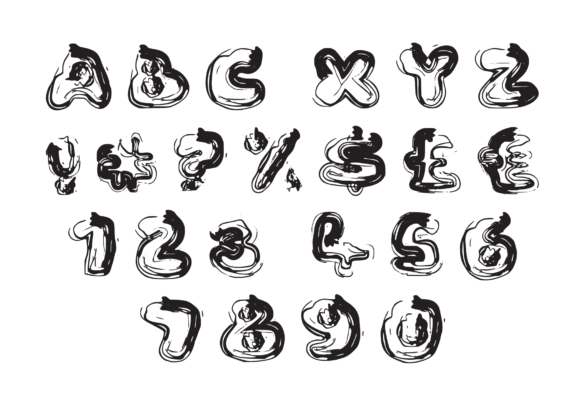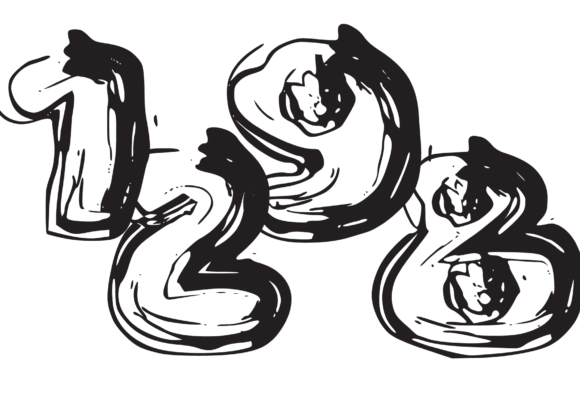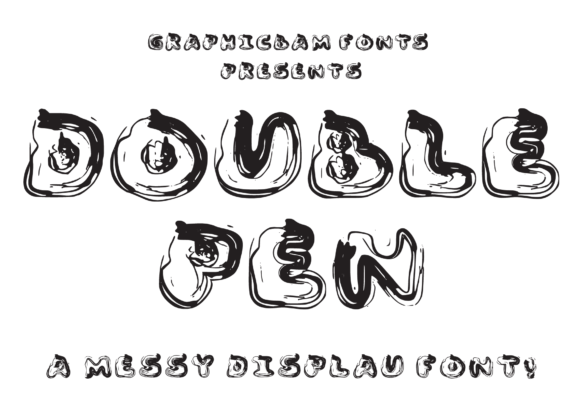
Introducing Double Pen Font: Add a Playful Touch to Your Designs
Are you tired of using the same old fonts in your designs? Look no further! Double Pen Font is a casual, bold looking, outlined display font that’s sure to add a playful and personalized touch to your creations. In this article, we’ll dive into the features and benefits of Double Pen Font, and explore how you can use it to take your designs to the next level.
What is Double Pen Font?
Double Pen Font is a unique and eye-catching font that’s perfect for designers and crafters looking to add some personality to their work. This font features a bold, outlined design with a casual and playful feel. The double pen effect gives it a distinctive look that’s sure to grab attention.
Key Features of Double Pen Font
- Bold and Outlined Design: Double Pen Font features a bold and outlined design that’s perfect for creating eye-catching headlines and titles.
- Casual and Playful Feel: This font has a casual and playful feel that’s perfect for designs that need a personal touch.
- Unique Double Pen Effect: The double pen effect gives this font a distinctive look that’s sure to set it apart from other fonts.
- Easy to Read: Despite its bold design, Double Pen Font is easy to read, making it perfect for use in a variety of designs.
Benefits of Using Double Pen Font
So why should you use Double Pen Font in your designs? Here are just a few benefits:
- Adds Personality to Your Designs: Double Pen Font is a unique and eye-catching font that’s sure to add a personal touch to your designs.
- Perfect for Headlines and Titles: The bold and outlined design of Double Pen Font makes it perfect for use in headlines and titles.
- Great for Social Media Graphics: This font is perfect for use in social media graphics, where you want to grab attention and stand out.
- Easy to Pair with Other Fonts: Double Pen Font is easy to pair with other fonts, making it perfect for use in a variety of design projects.
How to Use Double Pen Font
Using Double Pen Font is easy! Here are a few tips to get you started:
- Use it for Headlines and Titles: Double Pen Font is perfect for use in headlines and titles, where you want to grab attention.
- Pair it with Other Fonts: Try pairing Double Pen Font with other fonts to create a unique and eye-catching design.
- Use it in Social Media Graphics: This font is perfect for use in social media graphics, where you want to stand out.
- Experiment with Different Colors: Try experimenting with different colors to find the perfect look for your design.
Who is Double Pen Font for?
Double Pen Font is perfect for:
- Graphic Designers: If you’re a graphic designer looking for a unique and eye-catching font to add to your collection, Double Pen Font is a great choice.
- Crafters: If you’re a crafter looking for a font to use in your handmade projects, Double Pen Font is a great choice.
- Small Business Owners: If you’re a small business owner looking for a font to use in your branding and marketing materials, Double Pen Font is a great choice.
Double Pen Font is a unique and eye-catching font that’s perfect for designers and crafters looking to add a playful and personalized touch to their work. With its bold and outlined design, casual and playful feel, and unique double pen effect, this font is sure to grab attention and stand out. Whether you’re a graphic designer, crafter, or small business owner, Double Pen Font is a great choice for any design project.